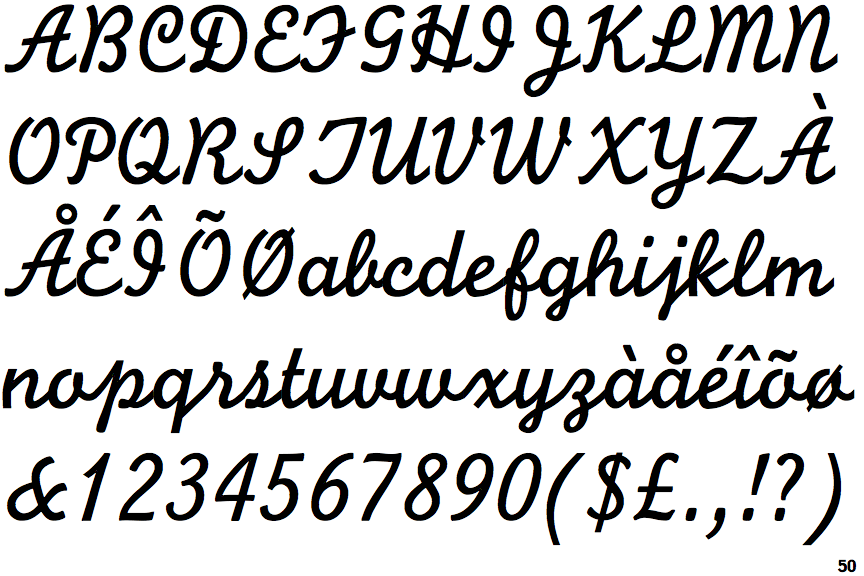
Monoline Script Font Adobe
Monoline Script Font Adobe. There is no variation in width and no contrast from thin to thick. Sophia white is a modern monoline script, ideal for wedding stationery, logo design, watermarks, brand design, websites, social media, marketing and more!
More information about this font. My goal with this font was to create an easily legible script font which would work for a wide variety of purposes. If you recognize the font from the samples posted here don't be shy and help a fellow designer.
Pauline Script Is A Monoline Script With A Vintage Feel.
Adorbs, A Monoline Script Font.
Monoline is a style where each letter has the same thickness from start to finish. Absolutely silent is a simple and single line handwritten font, described by a refined touch. Take advantage of g4d's free access to tens of thousands of design resources.
Monoline Script Mt W01 Regular.
Explore Madre Script Designed By Marconi Lima At Adobe Fonts.
Sophia white is a modern monoline script, ideal for wedding stationery, logo design, watermarks, brand design, websites, social media, marketing and more! There is no variation in width and no contrast from thin to thick. It is perfect for any branding project such as.
Bucherry is perfect for branding projects, logo, wedding designs, social media posts, advertisements, product packaging, product designs, label, photography, watermark, invitation, stationery and any projects that need handwriting taste. Bucherry a font with stylish monoline script and very suitable for your beautiful projects. A script typeface with 4 styles, available from adobe fonts for sync and web use.